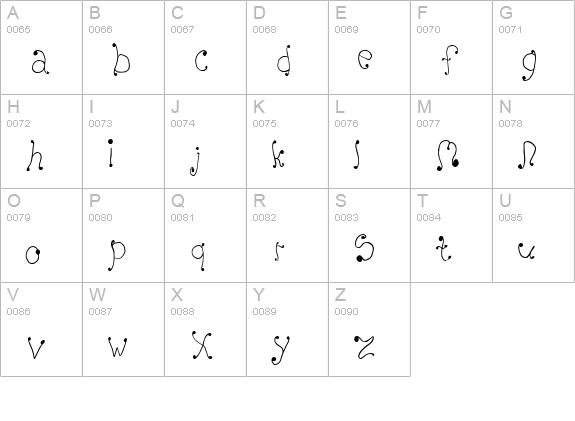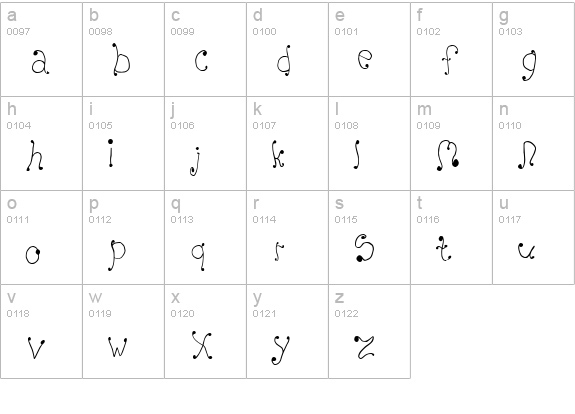
Melanie (Girly) Font Details
Melanie (Girly) font is a delightful and whimsical typeface that exudes femininity and charm. Designed with a playful touch, this font is perfect for adding a touch of girlish elegance to your projects. With its graceful curves and intricate details, Melanie (Girly) font captures a sense of grace and beauty. Best of all, Melanie (Girly) font is available for free download at FontsMarket.com. So, whether you're working on a creative design project, crafting a stylish invitation, or simply looking to add a touch of sweetness to your text, Melanie (Girly) font is the perfect choice. Download it today and let your creativity flow with this lovely and freely available font.